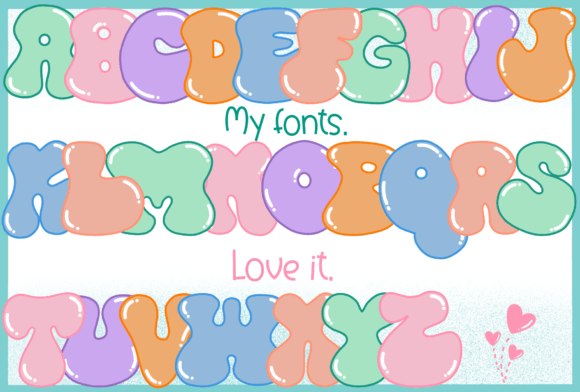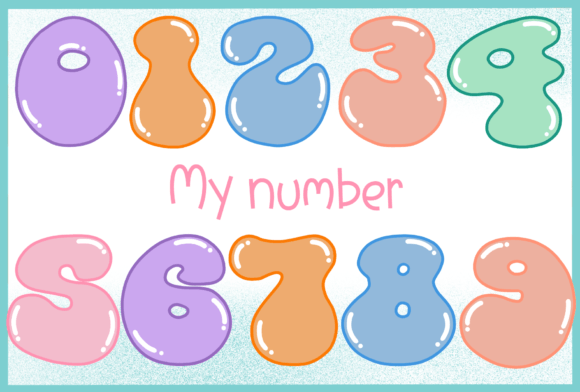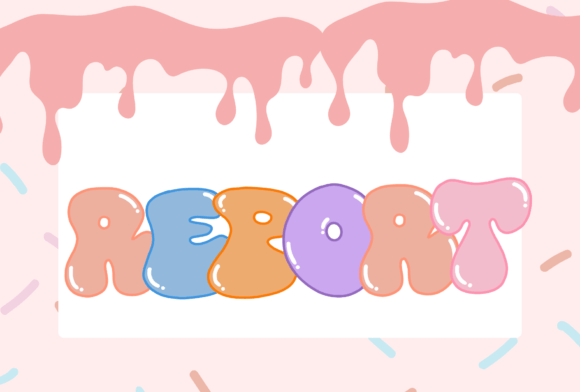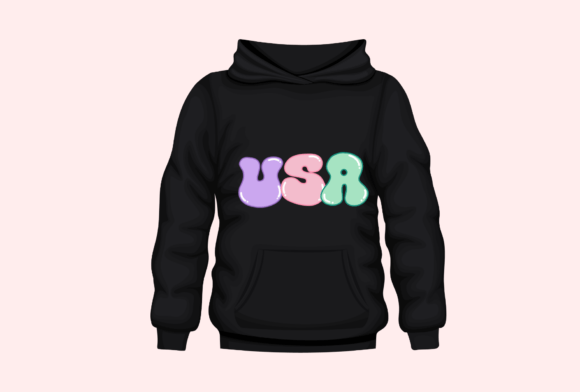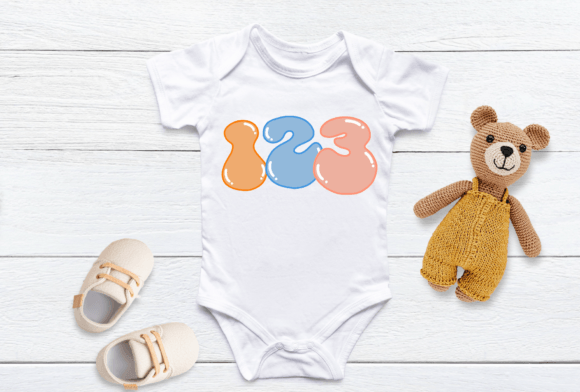
Introducing Groovy Color Font: The Ultimate Creative Companion for Designers and Crafters
Are you on the lookout for a font that can elevate your designs, add a touch of personality to your crafts, and make your presentations more engaging? Look no further than the Groovy Color Font, a super cute handwriting font that’s as simple as it is versatile. This delightful font is perfect for a wide range of applications, from educational materials and advertising to illustrations and more. In this article, we’ll dive into the world of Groovy Color Font, exploring its features, benefits, and the myriad of ways you can use it to bring your creative projects to life.
The Charm of Groovy Color Font
Groovy Color Font is more than just a typeface; it’s an experience. Its super cute handwriting style exudes warmth and friendliness, making it an instant favorite among designers, crafters, and educators. The simplicity of its design ensures that it remains approachable and easy to read, which is particularly beneficial for educational materials where clarity is key. Whether you’re creating a lesson plan, a promotional offer, or an illustrative piece, this font adds that special something that makes your work stand out.
Why Choose Groovy Color Font?
There are countless reasons why Groovy Color Font should be your go-to choice for your next project. Here are just a few:
- Versatility: Its simple yet charming design makes it suitable for a wide range of applications, including education, advertising, illustrations, and more.
- Readability: Despite its decorative nature, Groovy Color Font remains clear and easy to read, making it perfect for both headings and body text.
- Creativity: The font’s playful vibe encourages creativity and can be used to convey a friendly, approachable message in your designs.
- Multipurpose Use: From decorating presentations and educational materials to crafting unique advertising campaigns and illustrations, Groovy Color Font is a valuable asset for any creative project.
Applications of Groovy Color Font
The possibilities are endless with Groovy Color Font. Here are some popular ways designers and crafters are using this delightful font:
- Education: Add a personal touch to lesson plans, worksheets, and educational posters. Its readability and charm make learning more engaging and fun.
- Advertising: Use Groovy Color Font to create eye-catching promotional materials that stand out. Its friendly vibe is perfect for brands looking to connect with their audience on a more personal level.
- Illustrations: Bring your illustrations to life with this vibrant font. It’s ideal for adding quotes, descriptions, or dialogue in a way that’s both visually appealing and easy to read.
- Crafts: Whether you’re designing handmade cards, DIY project instructions, or decorative items, Groovy Color Font adds a touch of whimsy and personality to your crafts.
Getting Started with Groovy Color Font
Incorporating Groovy Color Font into your projects is easy. Here are some tips to get you started:
- Experiment with Styles: While Groovy Color Font is charming on its own, don’t be afraid to experiment with different sizes, colors, and styles to match your project’s aesthetic.
- Pair with Complementary Fonts: For maximum impact, consider pairing Groovy Color Font with complementary fonts that enhance its playful yet simple style.
Groovy Color Font is a creative, simple design that’s suitable for all applications. Its super cute handwriting style, combined with its simplicity and readability, makes it an invaluable resource for designers, crafters, and educators. Whether you’re looking to enhance your educational materials, create engaging advertisements, or bring a personal touch to your illustrations and crafts, Groovy Color Font is the perfect companion. Welcome to the world of Groovy Color Font, where creativity meets simplicity. Thanks for joining us on this journey, and we look forward to seeing the amazing projects you’ll create with this versatile font!